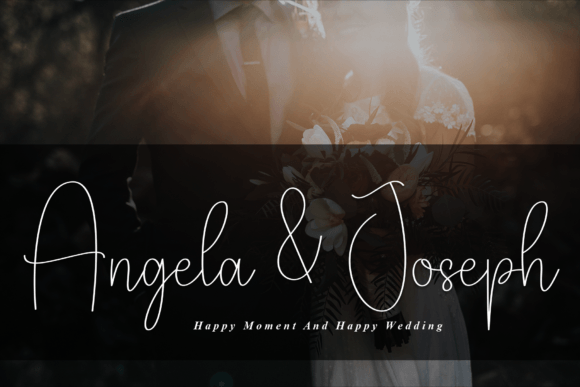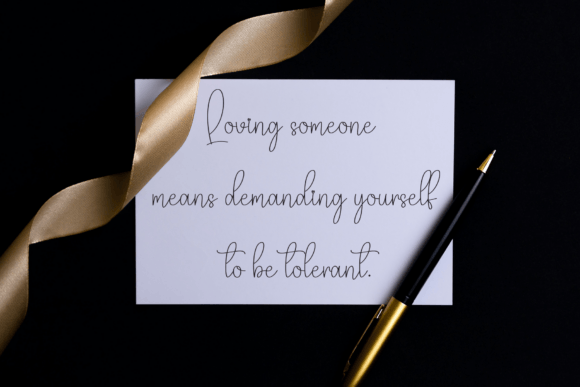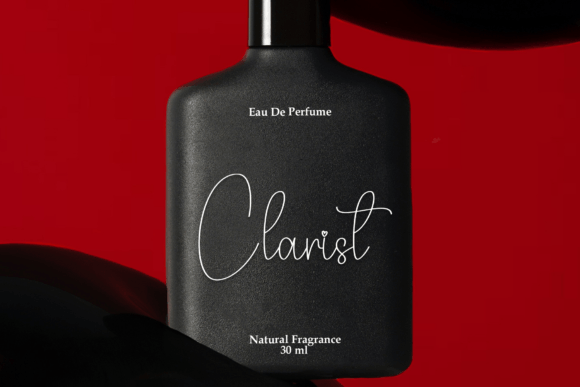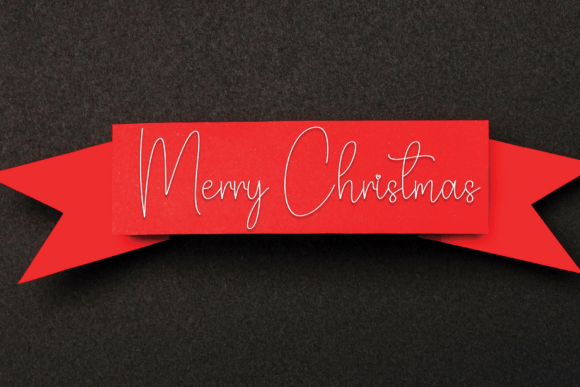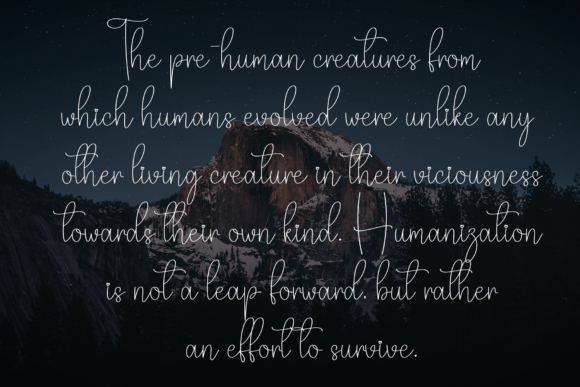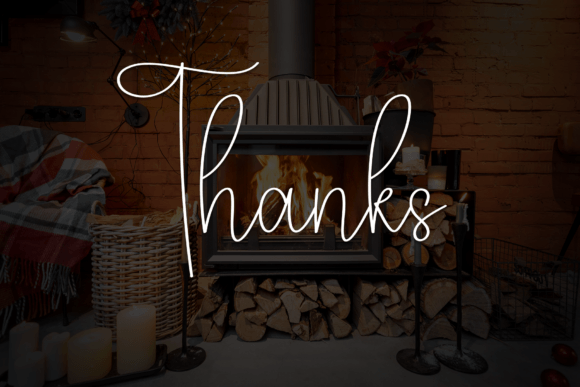
The Magic of Fireplace Font: Elevating Your Designs with Elegance
I still remember the time I was working on a wedding invitation project, and my client asked for a font that exuded elegance and sophistication. I scoured the internet, tried out countless fonts, but nothing seemed to fit the bill. That was until I stumbled upon Fireplace Font. It was love at first sight! 💕 The flowing script, the intricate details, and the warm feel it brought to my design – it was exactly what I needed. In this article, I’ll share my experience with Fireplace Font, its features, and how to make the most of it in your designs.
A Honest Review of Fireplace Font
- ✨ Elegant and stylish script font perfect for wedding invitations, thank you cards, and quotes
- ✅ Highly versatile and can be used for various design projects, from logos to business cards
- 💫 Beautifully crafted with intricate details, giving it a handmade touch
- 🌈 Supports OpenType features, allowing for advanced typographic control
While Fireplace Font is an excellent choice, there are a few things to keep in mind:
- ⚠️ May not be suitable for body text or long paragraphs, as it’s a script font and can be challenging to read in large quantities
- 🤔 Some characters may require manual kerning for optimal spacing
The Story Behind Fireplace Font
Fireplace Font was designed with the intention of capturing the warmth and coziness of a crackling fireplace. The designer, inspired by traditional calligraphy and hand-lettering techniques, aimed to create a font that would bring a sense of elegance and sophistication to any design project. With its intricate details and flowing script, Fireplace Font has become a popular choice among designers and crafters.
| Font Name | Fireplace Font |
| Author | Creativewhitee |
Q: What type of projects is Fireplace Font best suited for?
A: Fireplace Font is perfect for wedding invitations, thank you cards, quotes, greeting cards, logos, business cards, and any other design project that requires a handwritten touch.
Q: Does Fireplace Font support OpenType features?
A: Yes, Fireplace Font supports OpenType features, allowing for advanced typographic control and access to stylistic alternates, glyphs, and more.